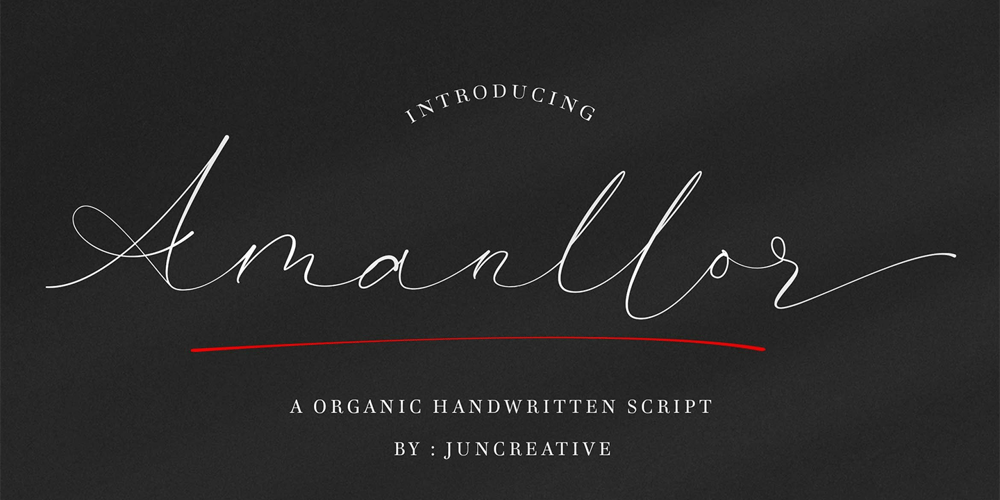
Amanllor
Amanllor font
Amanllor Font Family was designed by Muhamad Junaid and published by Juncreative. Amanllor contains 1 styles and family package options. Amanllor is a thin lettered and graceful script font. Fall for its ravishing style and use it to create gorgeous wedding invitations, beautiful stationary art, eye-catching social media posts, and much more! Amanllor is PUA encoded which means you can access all glyphs and swashes with ease!FEATURES Alternate Characters Uppercase and Lowercase letters Numbering and Punctuations Multilingual Support Works on PC or Mac Simple Installation Support Adobe Illustrator, Adobe Photoshop, Adobe InDesign, also works on Microsoft Word